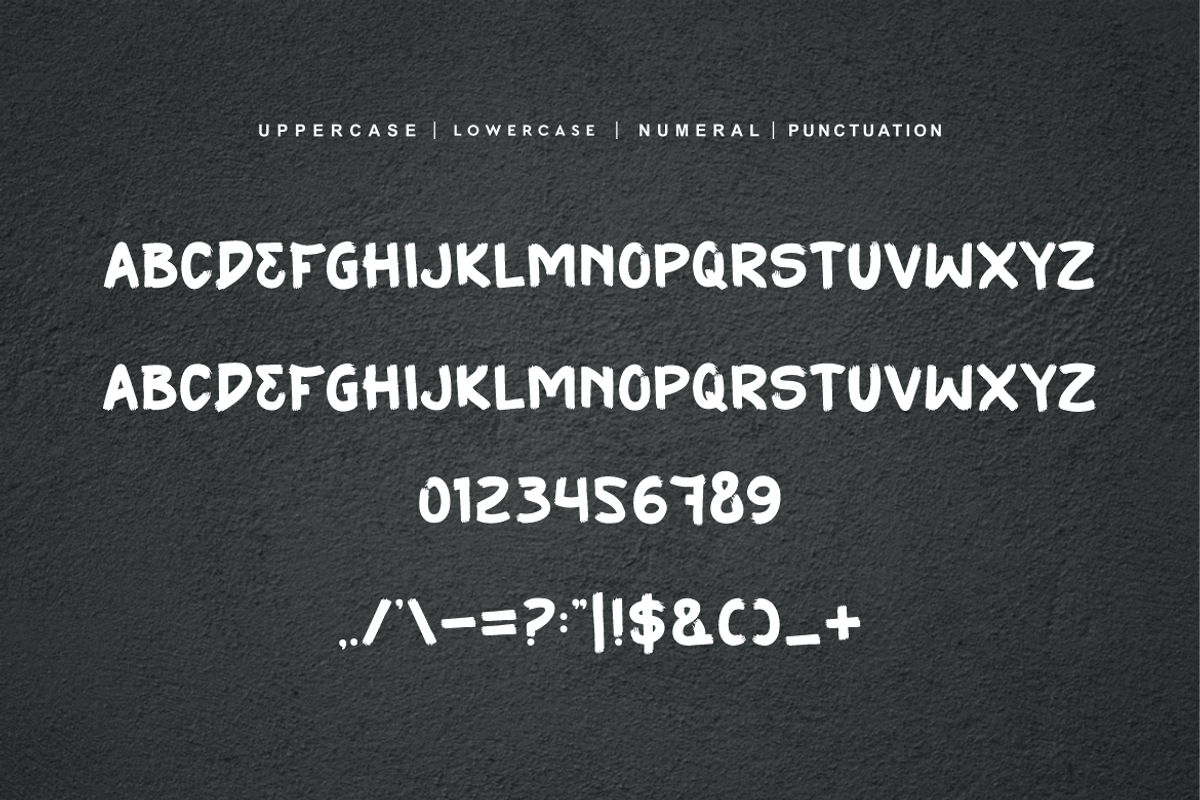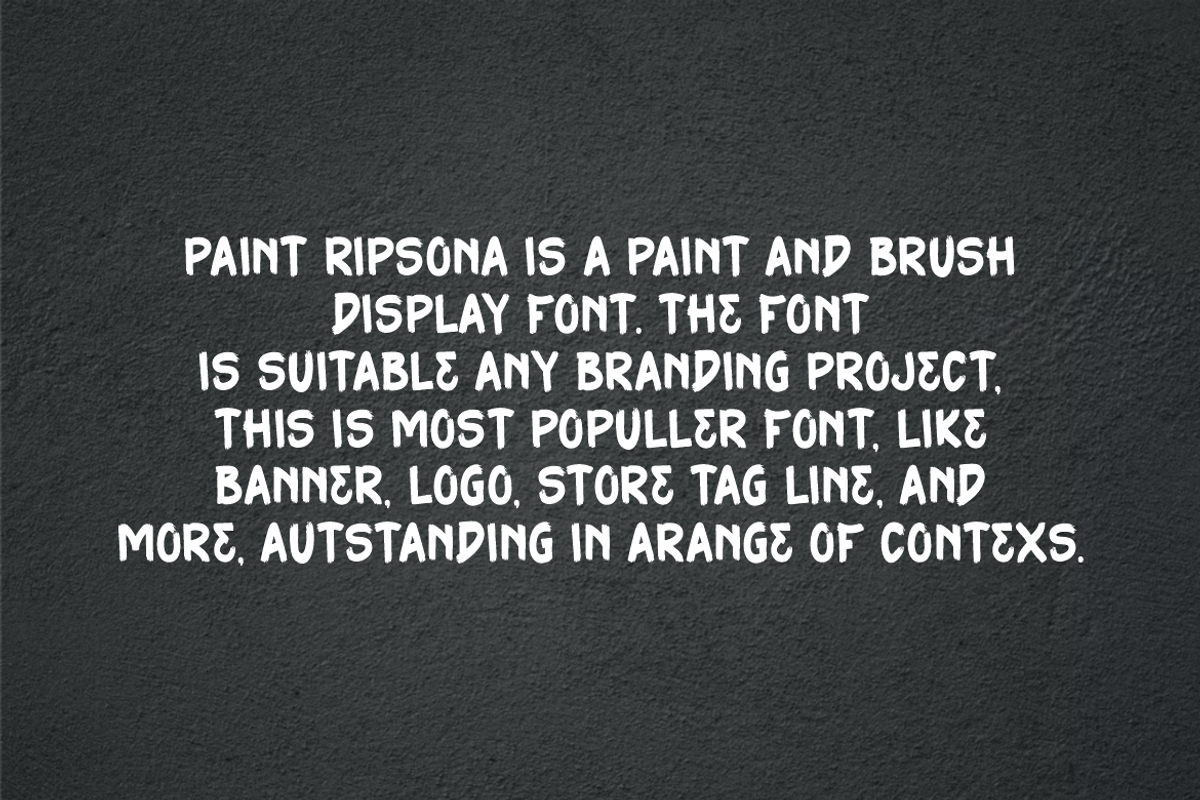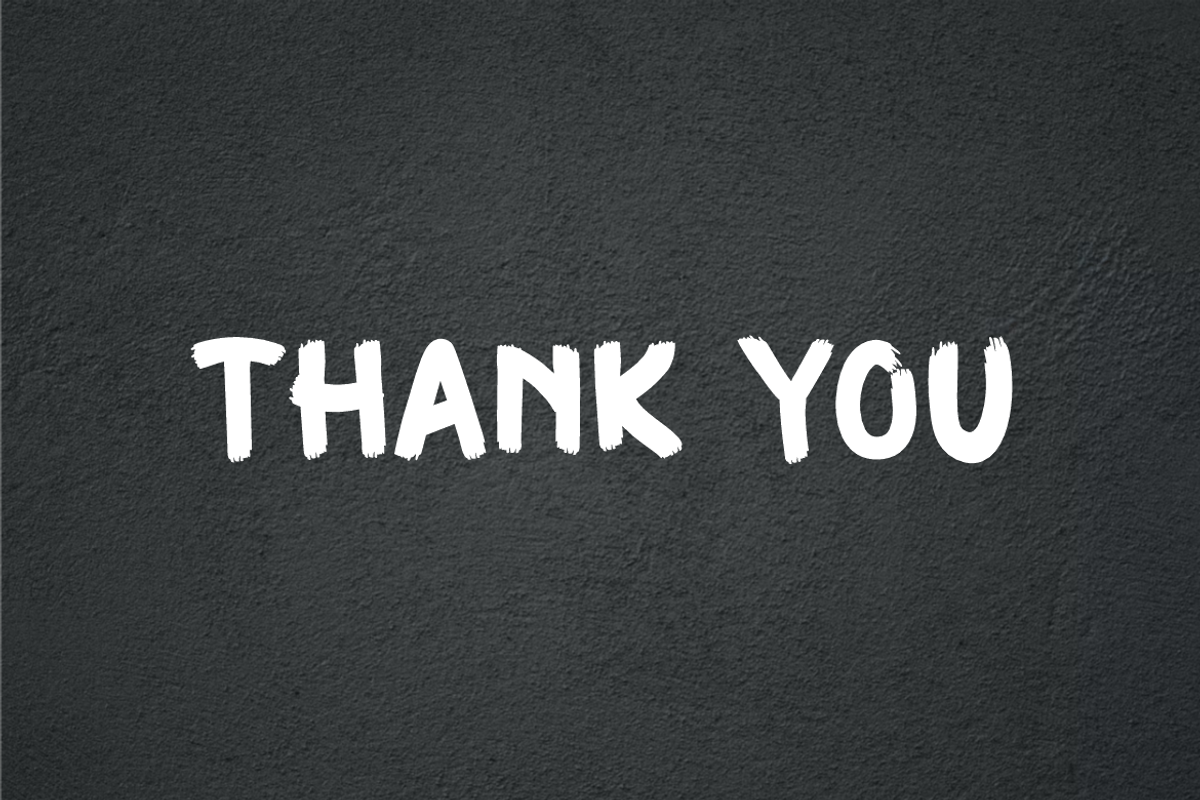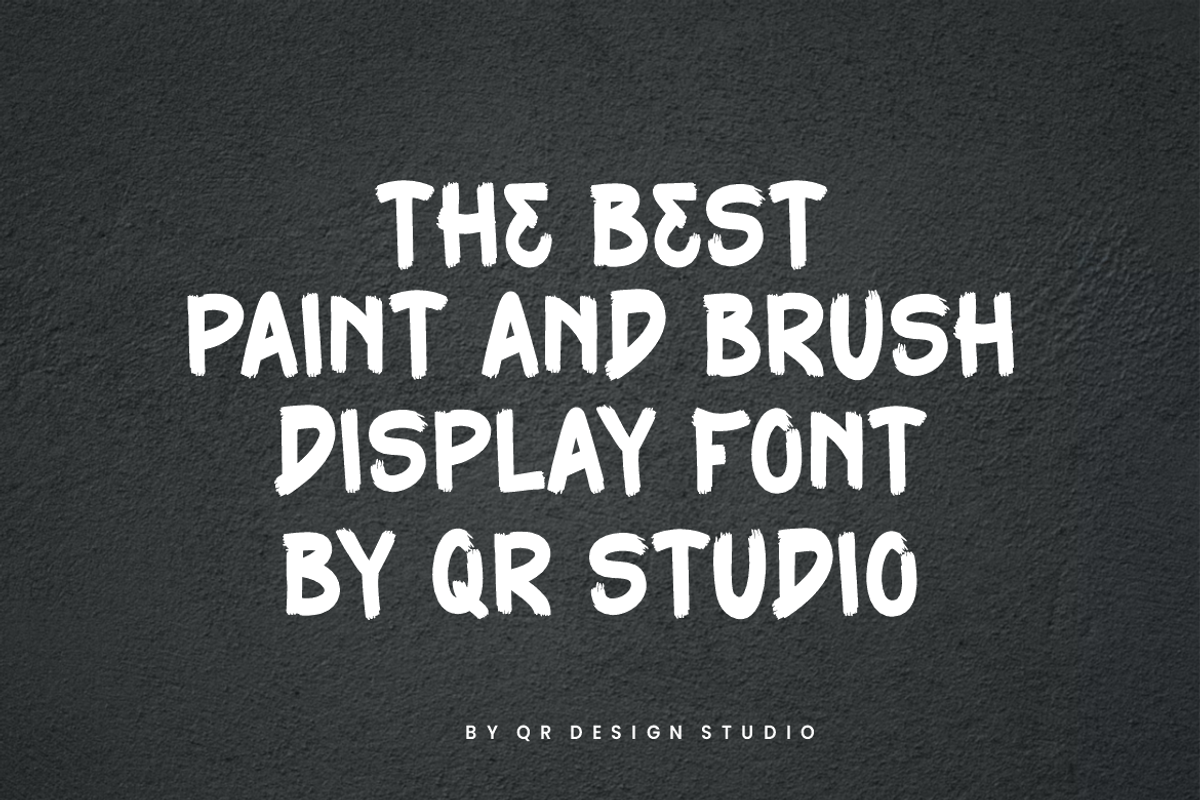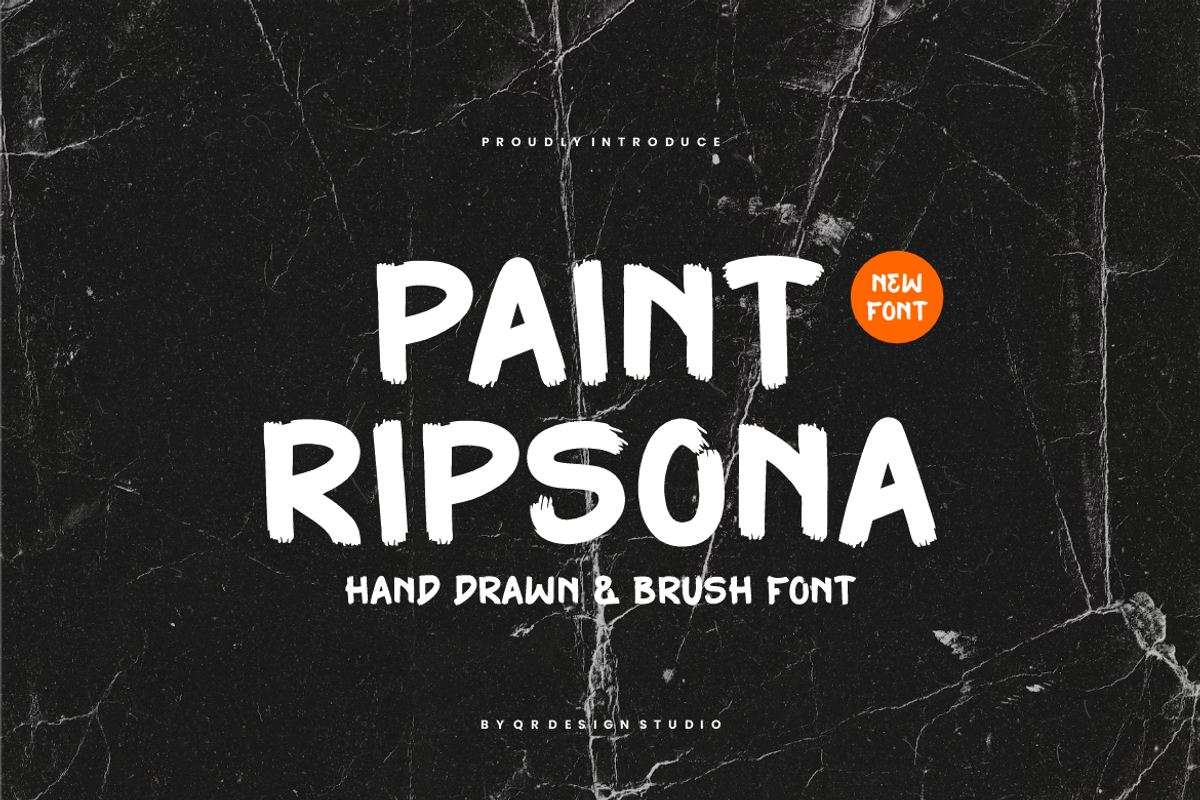
Paint Ripsona - Marker & Brush Font
Paint Ripsona Font is a bold and authentic display font. The font is suitable for any branding project like poster, logo, sport, and many more. Outstanding in a wide range of contexts.